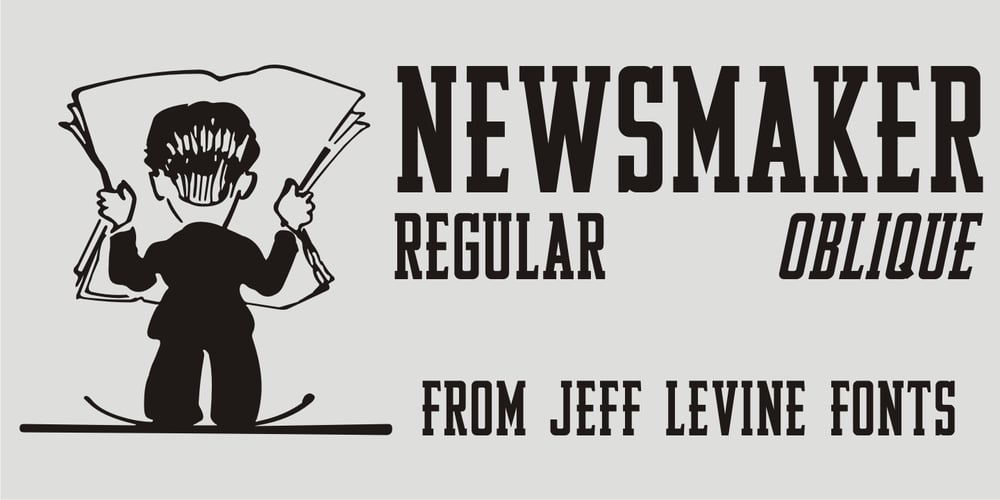
Newsmaker JNL
Newsmaker JNL font
Newsmaker JNL Font Family was designed by Jeff Levine and published by Jeff Levine. Newsmaker JNL contains 2 styles and family package options. A WPA (Works Progress Administration) poster from the 1940s saying “Behind the Headlines” presented the title hand-lettered in a bold, condensed slab serif. This became the model for Newsmaker JNL, available in both regular and oblique versions.